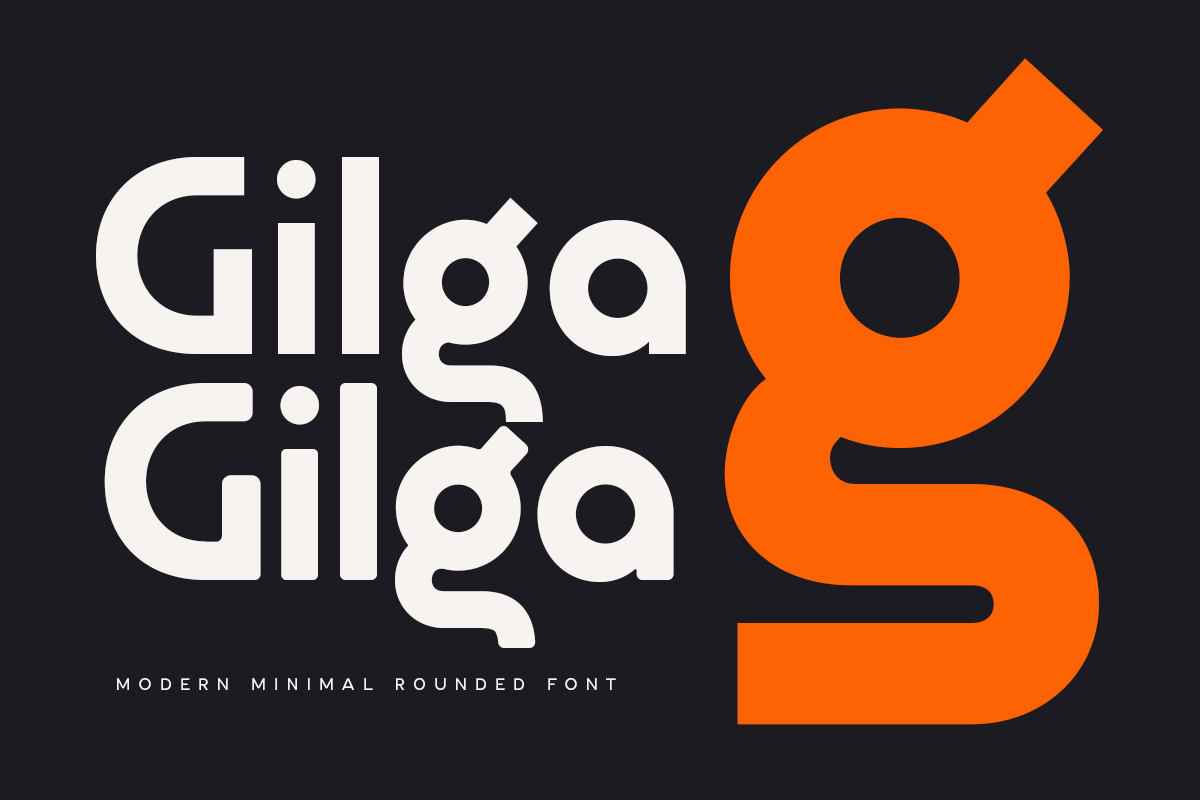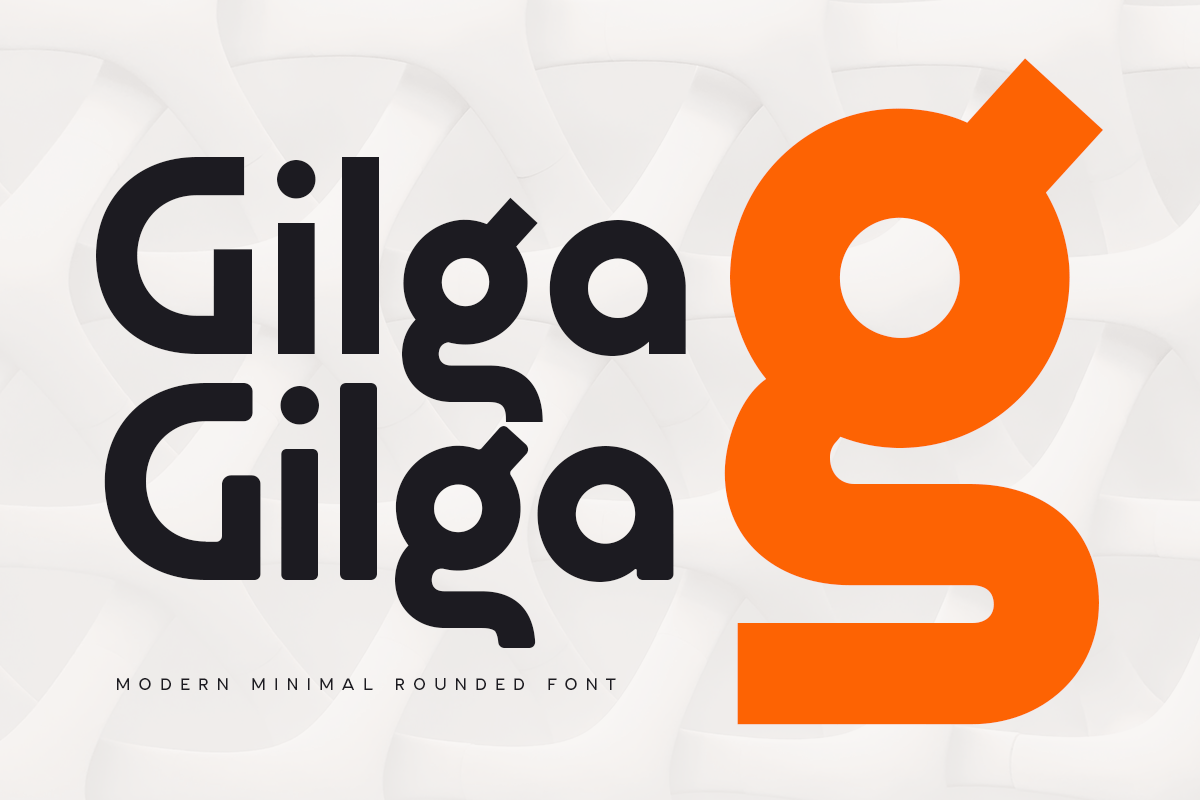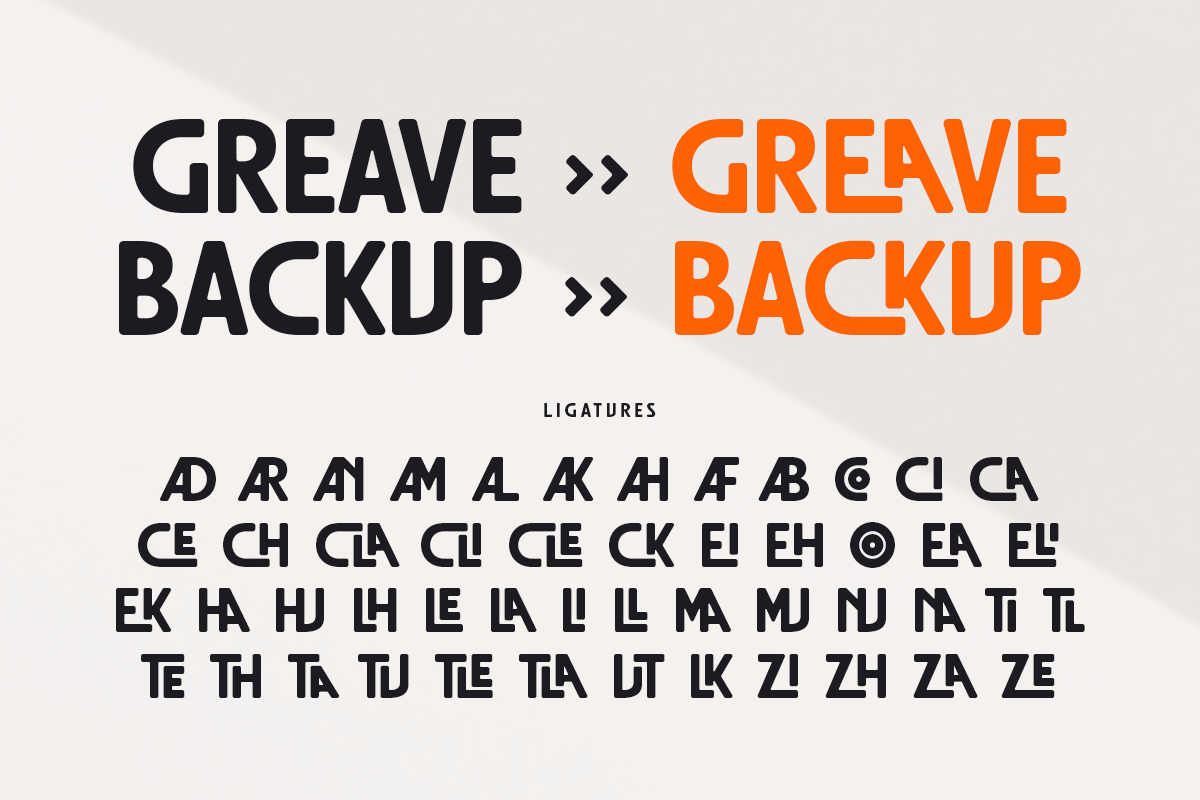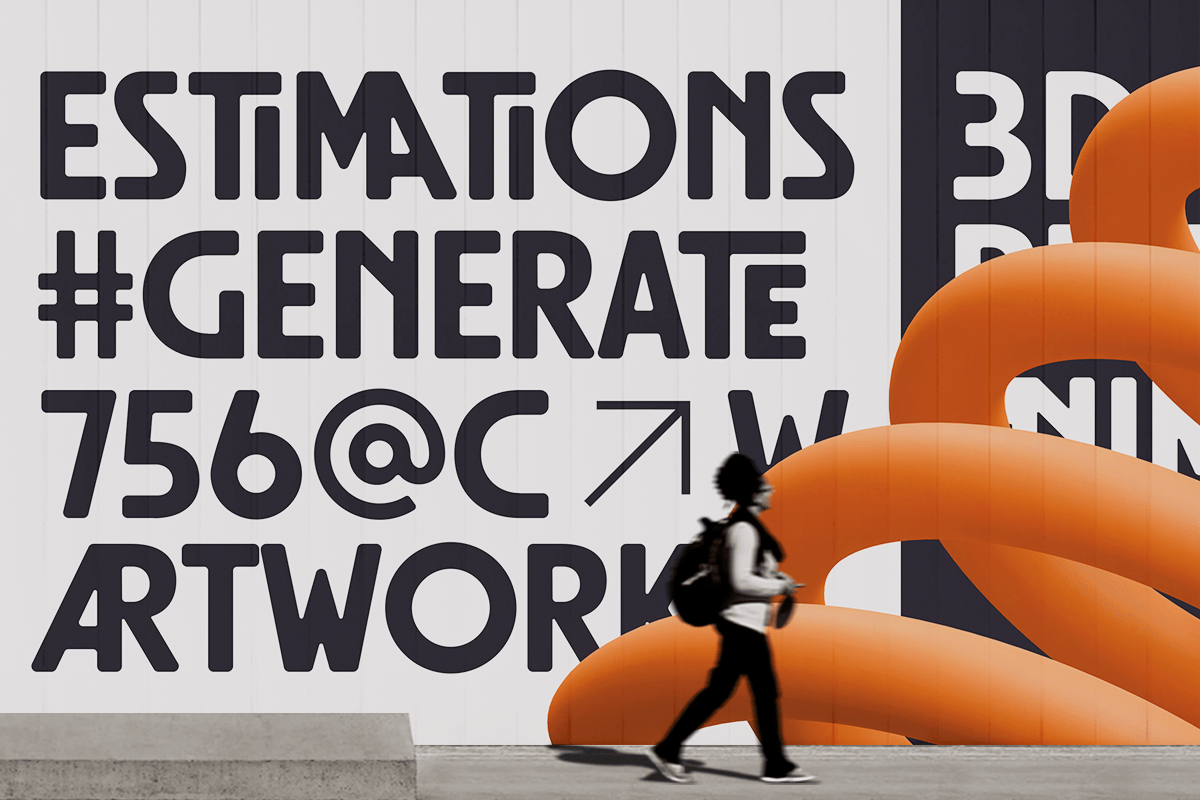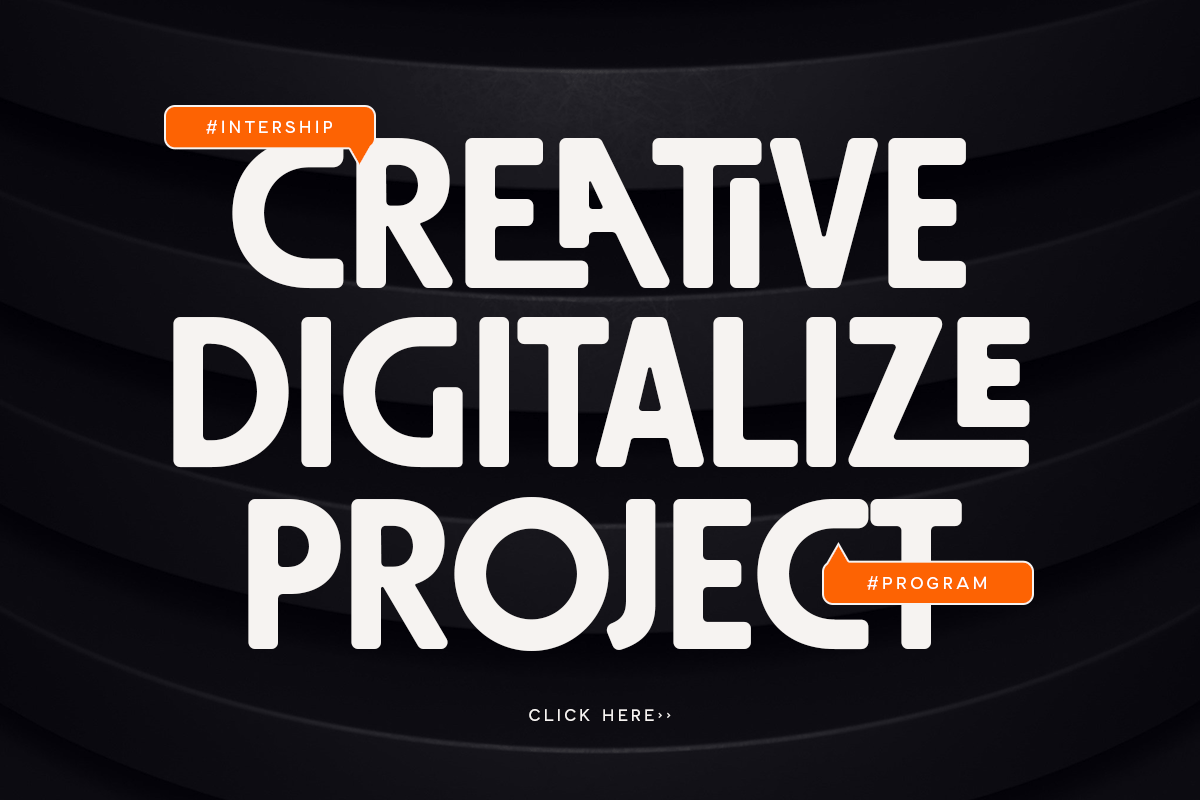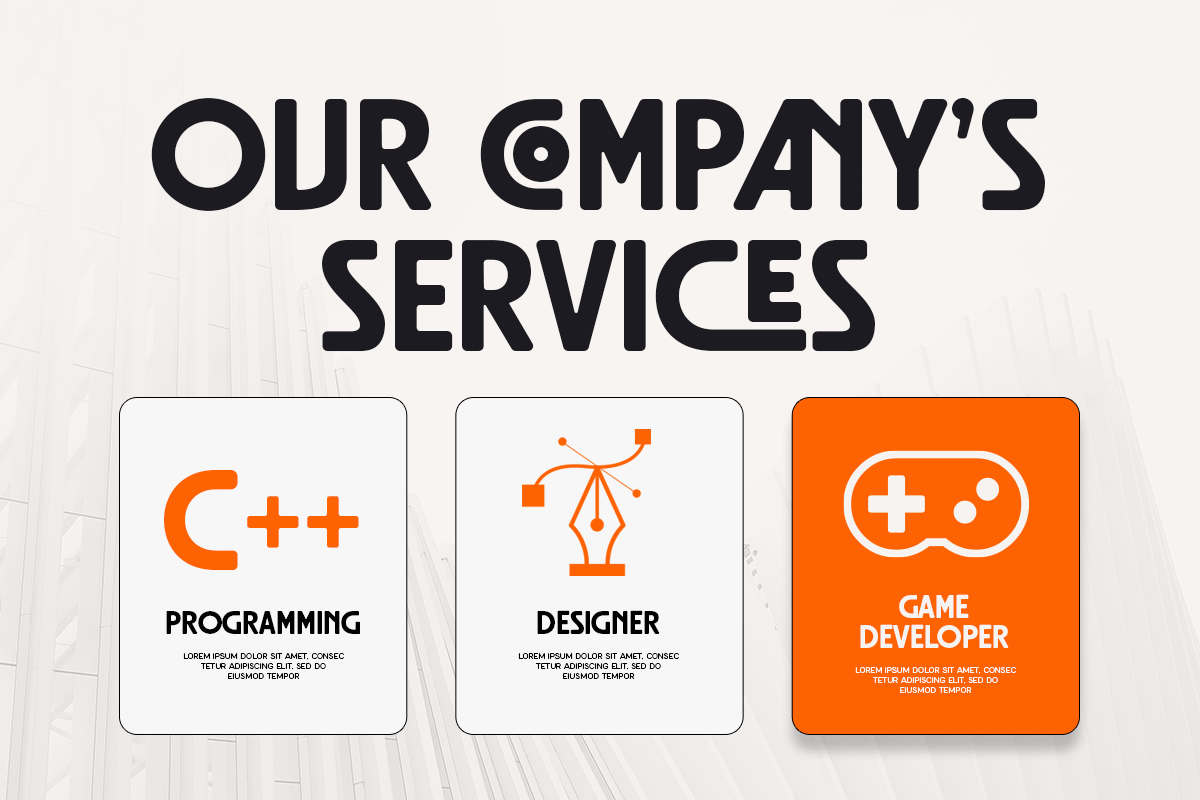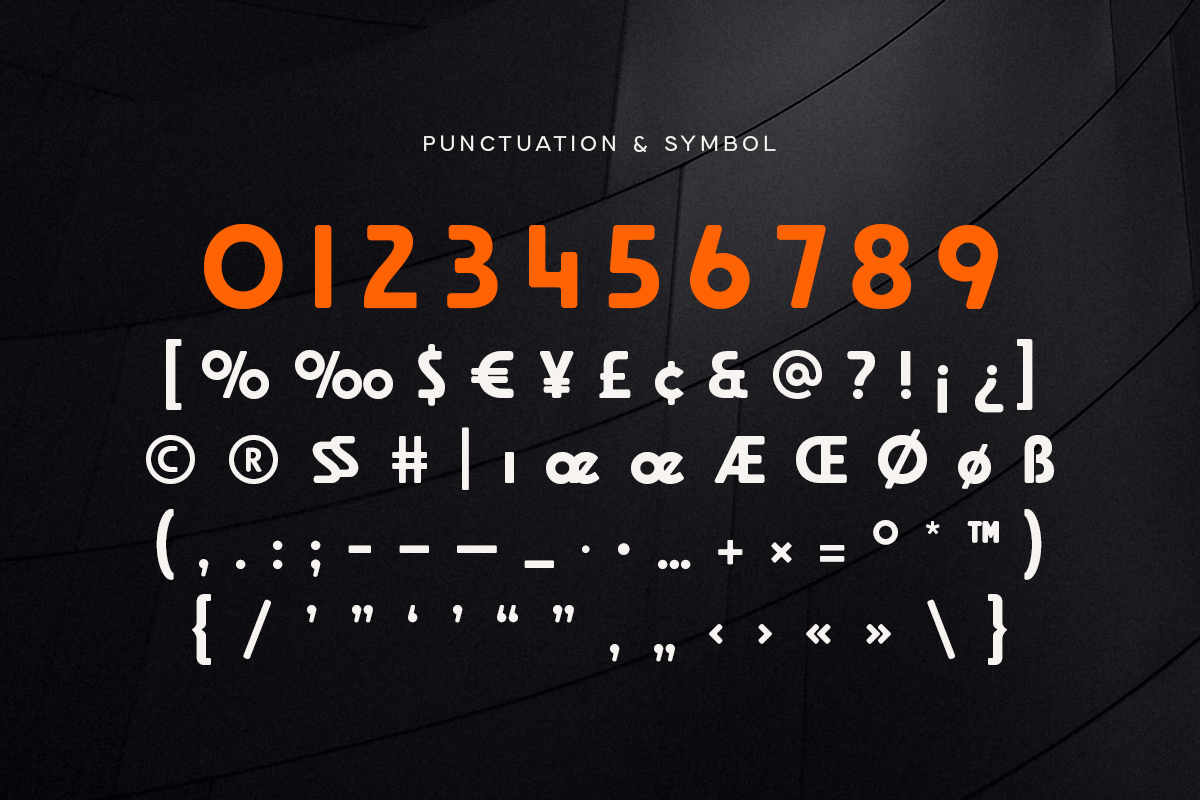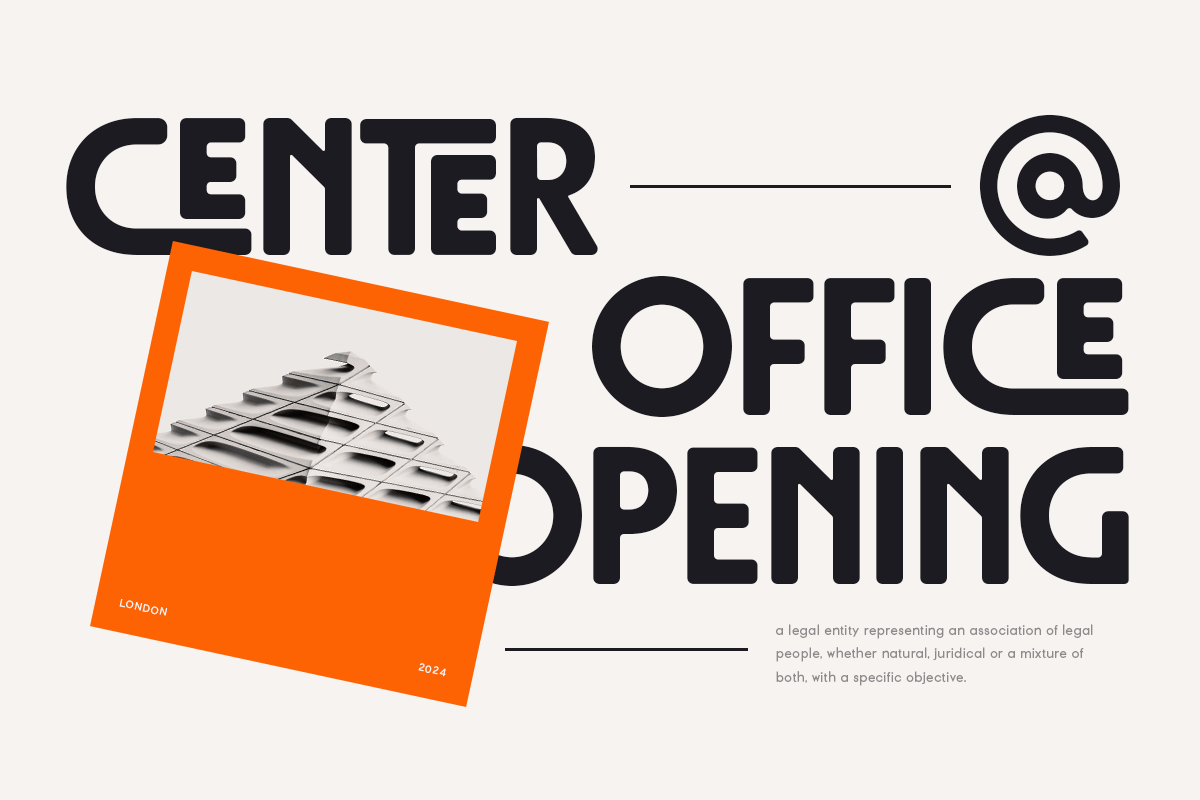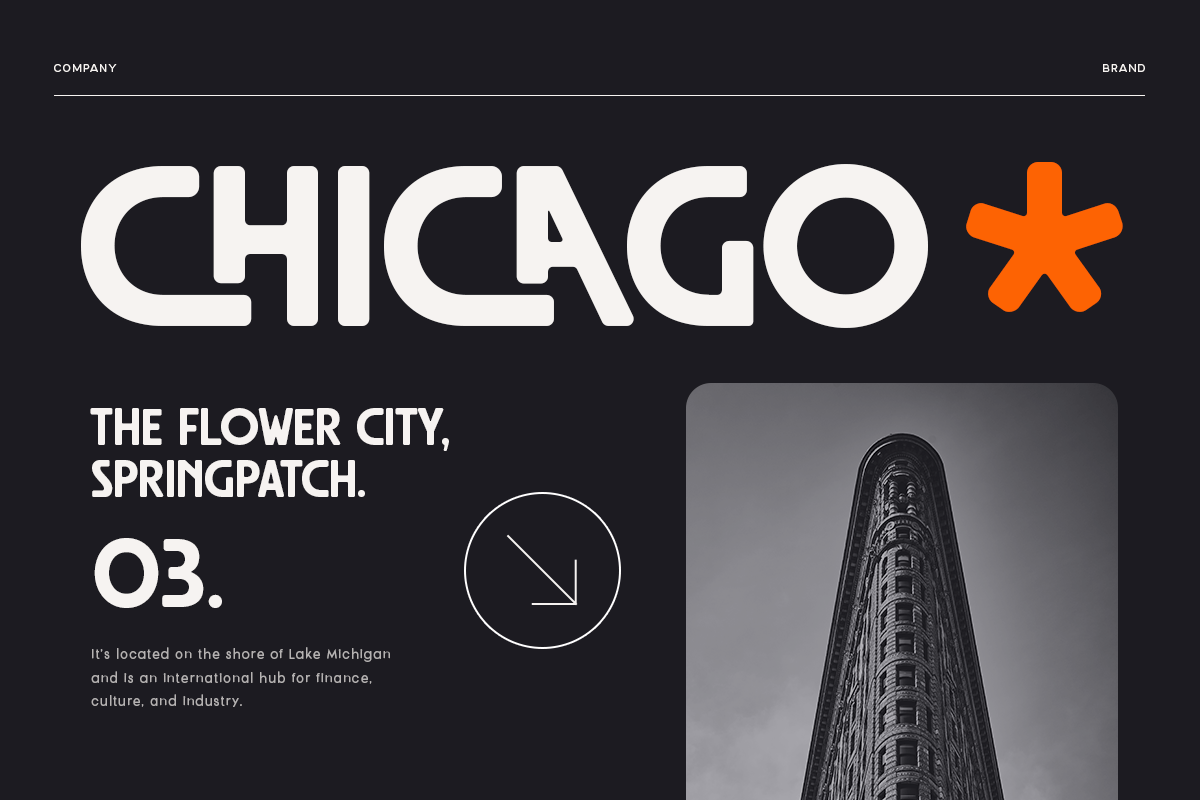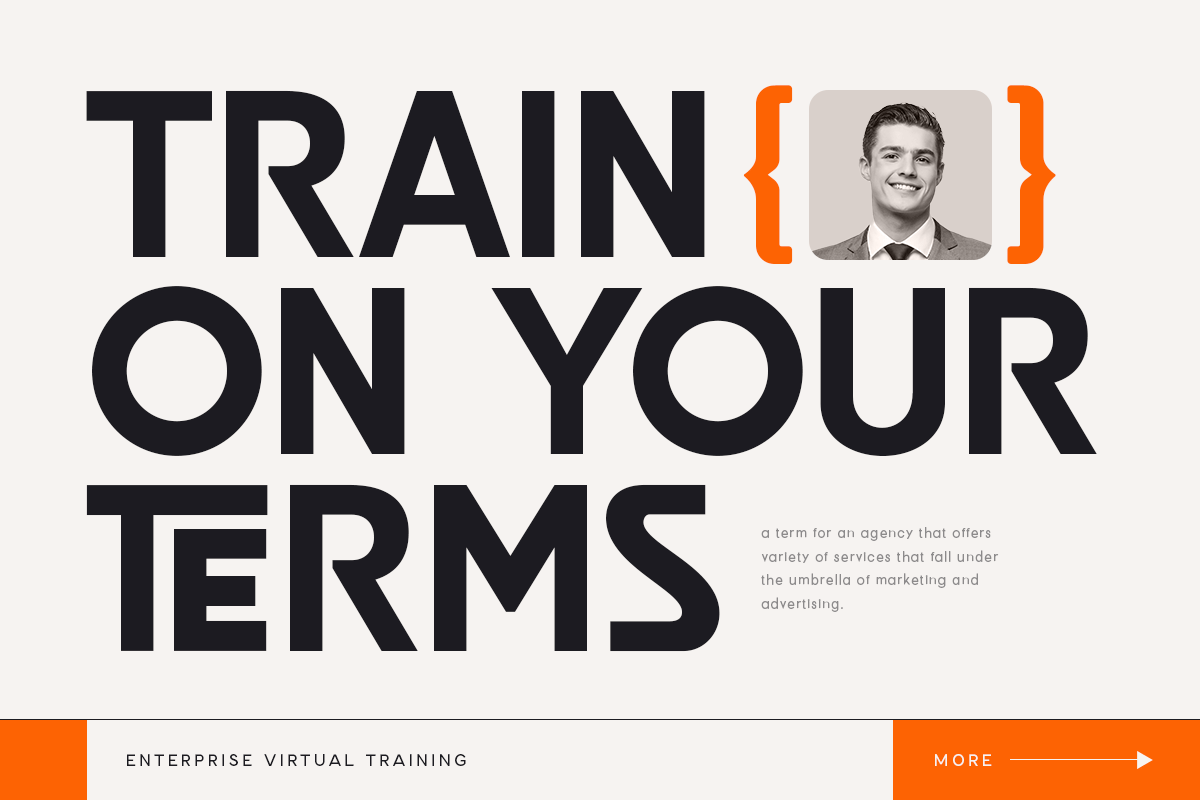
Gilga – Modern Minimal Rounded Font
Gilga is Modern Minimal Rounded Font that’s Geometric modern font with a minimalist, unique, and premium sans serif, font that you can combine to get any variations and unique shapes easily just in seconds with choose alternates of them. It is a sans serif font with minimalist style that perfect for branding projects, logo, poster designs, social media posts, advertisements, product packaging, product designs, label, photography, watermark, invitation, stationery, and any projects, it makes with a high level of legibility.
- Ligature Characters
- Character set A-Z
- Accented Characters (West Europe)